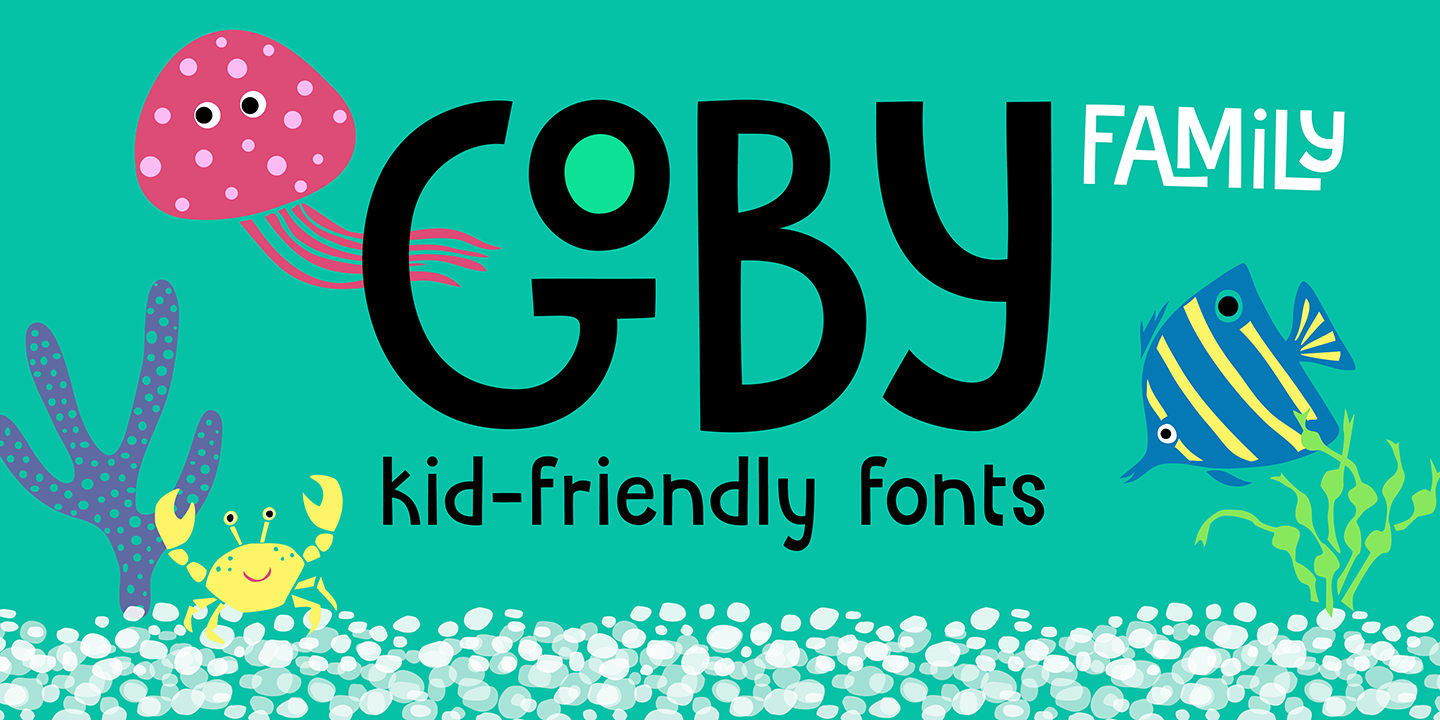
Goby Font is perfect for various design applications including aquarium branding, seafood restaurant logos, marine biology educational materials, underwater adventure games, ocean conservation campaigns, diving club identities, beach resort signage, nautical themed websites, fishing tournament posters, and aquatic typography displays.
What makes Goby Font so exciting is its fluid and aquatic character design that captures the graceful movement of underwater life through typography. The font features smooth, flowing letterforms with organic curves and water-inspired details that evoke the serene beauty of ocean depths and marine ecosystems. Its dynamic appearance and aquatic charm make it ideal for projects requiring an underwater, marine aesthetic that connects with audiences passionate about ocean life and creates immersive aquatic brand experiences.
Goby Font comes in multiple font families including Regular, Bold, Light, Wave, and Bubble variations, providing designers with comprehensive typographic flexibility for diverse marine-themed projects and aquatic branding applications.
This captivating typeface stands out in the competitive font market due to its exceptional marine appeal and fluid design. Whether you're creating underwater adventure materials, marine conservation campaigns, or aquatic business identities, Goby Font Free Download delivers the perfect balance of movement and readability. The font's skillfully crafted letterforms ensure excellent performance across both digital and print media, making it an essential addition to any designer's aquatic typography collection. Its unique character set supports various design contexts while maintaining consistent oceanic quality throughout different applications and marine-focused creative projects.